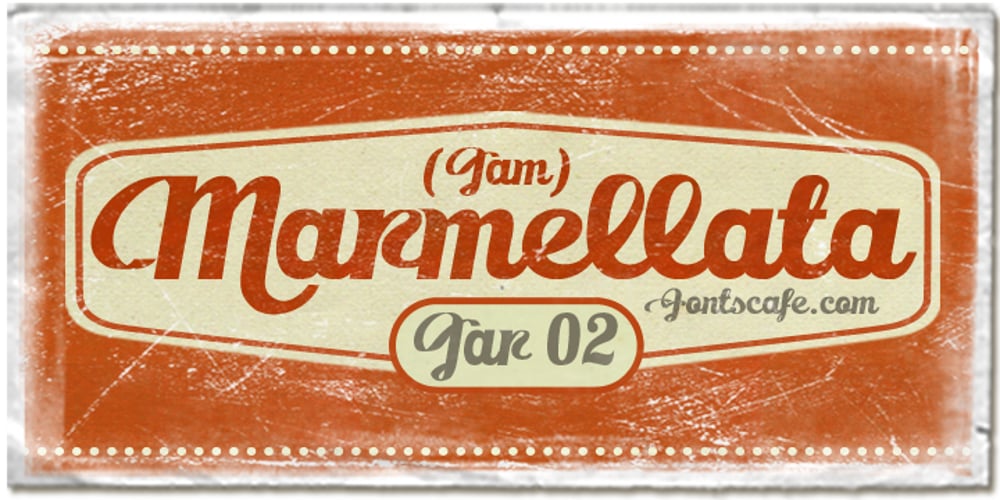
Marmellata Jar 02 Font Family was designed by published by Fontscafe. Marmellata Jar 02 contains 1 styles and family package options. So you just designed a night club brochure, and now need to change gears to help you make a design that oozes with love and togetherness? Let our Marmellata fonts help you get into the mood! A part of our Marmellata package and also available individually, the Jar 02 is something to be tried to be believed. This font takes you to that special place in your heart, reserved for your most cherished memories… It is great because of its simplicity, very much like all things from childhood! Don’t get us wrong though, this is not just a ‘childish’ font. While it would work great for children’s designs, we believe it would also be very fitting in designs that call for a touch of nostalgia, love, comfort, well-being and happiness. And yes, we agree that all children remind us of all of the above!